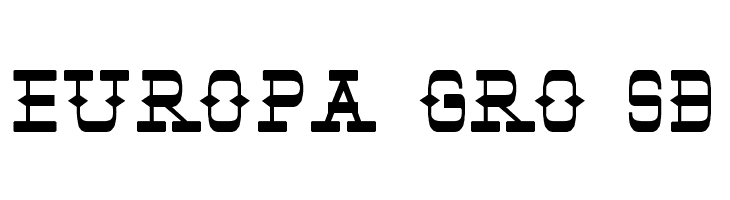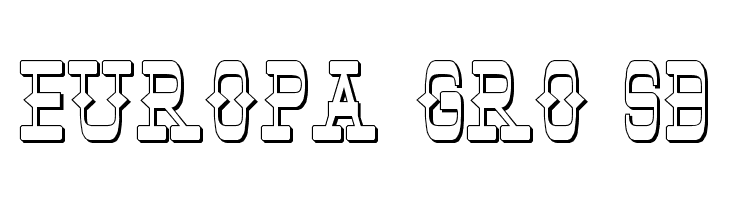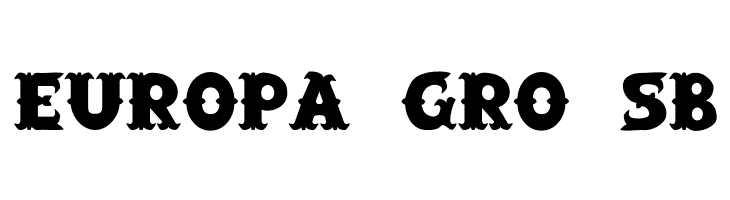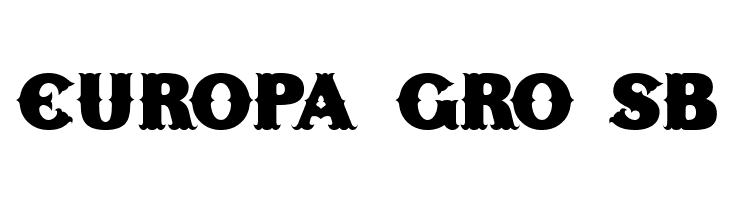
A bold, slab serif font with a vintage, western aesthetic.
A bold, shadowed outline font with a vintage, western-inspired style.
( Fonts by Cumberland Fontworks - http://www222.pair.com/sjohn/fonts.htm - S. John Ross )
A bold, decorative font with vintage, engraved detailing.
( Fonts by Andrew Hart - dirt2.com )
A bold, vintage-style font with decorative serifs and unique cut-out elements.
( Fonts by Levi Halmos )
A bold, vintage-style font with theatrical and quirky embellishments.
( Fonts by Christopher Hansen )
A bold, decorative font with a vintage circus theme and ornate, distressed edges.
A bold, distressed font with a rugged, vintage appearance.